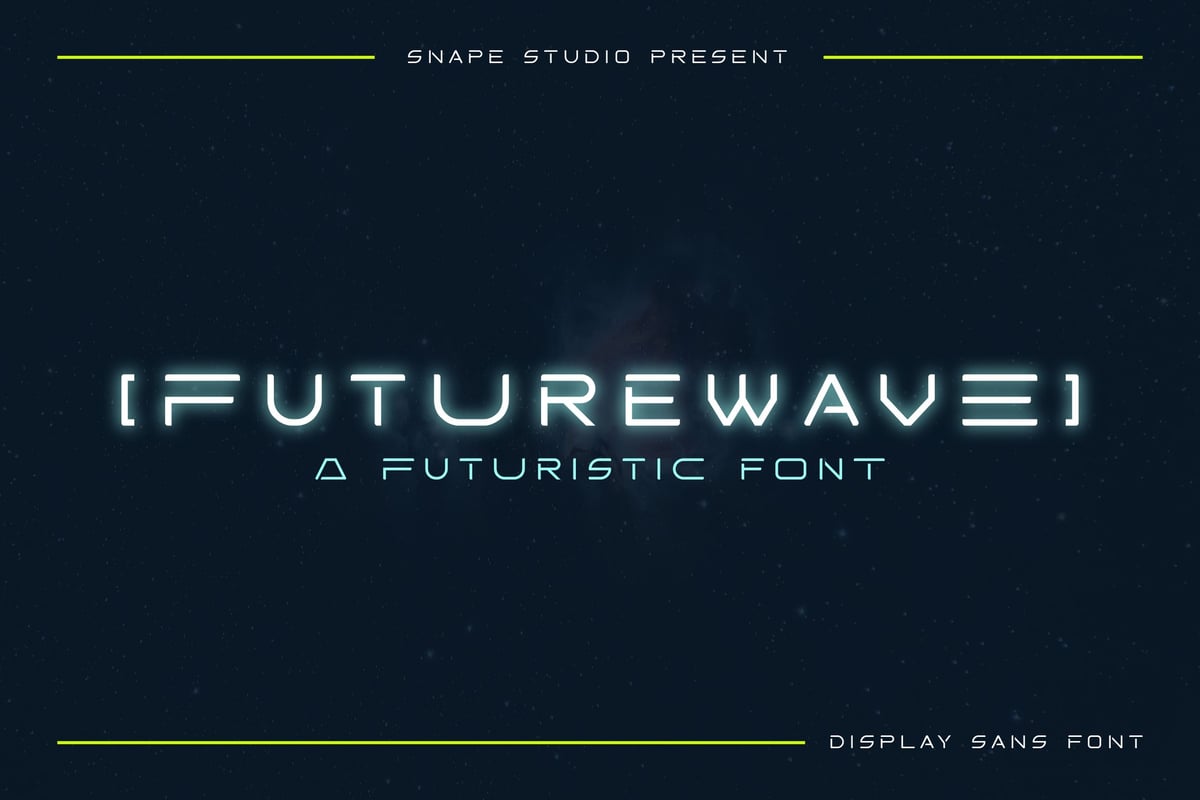
Futurewave – Space Futuristic Font
Transform your designs with Futurewave, the cutting-edge space futuristic font that brings tomorrow's aesthetic to today's projects. Futurewave delivers a modern, space-age design that's perfect for technology, digital themes, and space galaxy concepts. This versatile typeface elevates movies, documentaries, films, logos, posters, games, book covers, headlines, titles, and countless other creative projects. Add Futurewave to your design arsenal and watch your creative ideas stand out from the or...